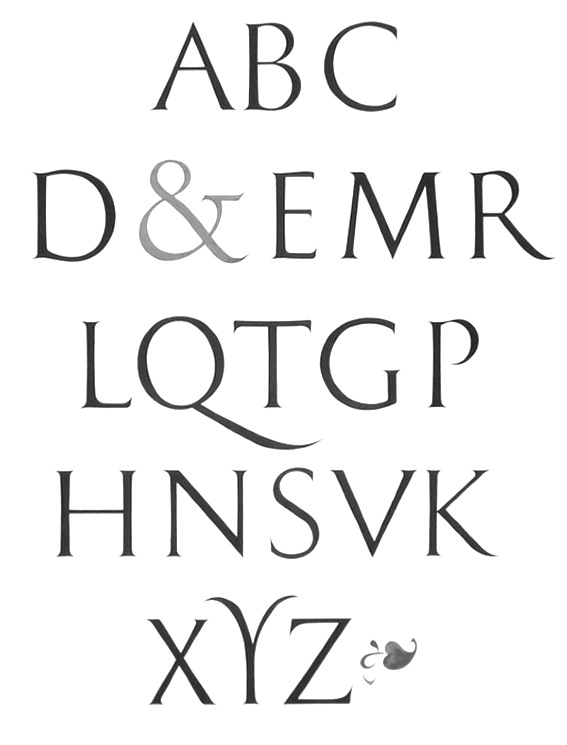
Media Type Foundry [Sonia da Rocha]
Media Type Foundry was created in 2010 by type designers Sonia da Rocha, Claude Mediavilla and Joel Vilas Boas (aka J85). It is an independent type foundry based in Paris. Thanks to Mediavilla and his ex-student da Rocha, the emphasis is on type that is deeply rooted in calligraphy.
Sonia da Rocha is a graphic and typeface designer from Porto, where she gained her first degree in graphic design. She studied for four years at the Vila do Conde School of design. In 2007, she studied calligraphy under Claude Mediavilla in Paris. Since 2009, she works at the Porchez Type foundry in Paris. Earlier, her name was Sonia Caramelo, and under that name she designed the Galadriel script typeface in 2008. With Aurélie Gasche, she designed the dot matrix typeface Insight in 2009. She also has some calligraphy on her web site. From 2010 until 2012, she studied at ESAD Amiens, France.
Typefaces:
• Aldi Roman (Sonia da Rocha, 2010): a garalde family.
• Gallus Titling (Sonias da Rocha, 2010): a classical roman era titling face.
• Asmaa (2012) is an Arabic-Latin typeface family developed during her studies at ESAD Amiens. She writes: Asmaa retains the robustness and the rapidity of mark making. The Latin has a seriffed version for longer texts, and a cursive version (semi-serif) which is closer to modern day writing styles, designed for using with Arabic, as well as an italic version. The family is named after Asmaa Mahfouz, a well-known Egyptian activist involved in the Arab spring.